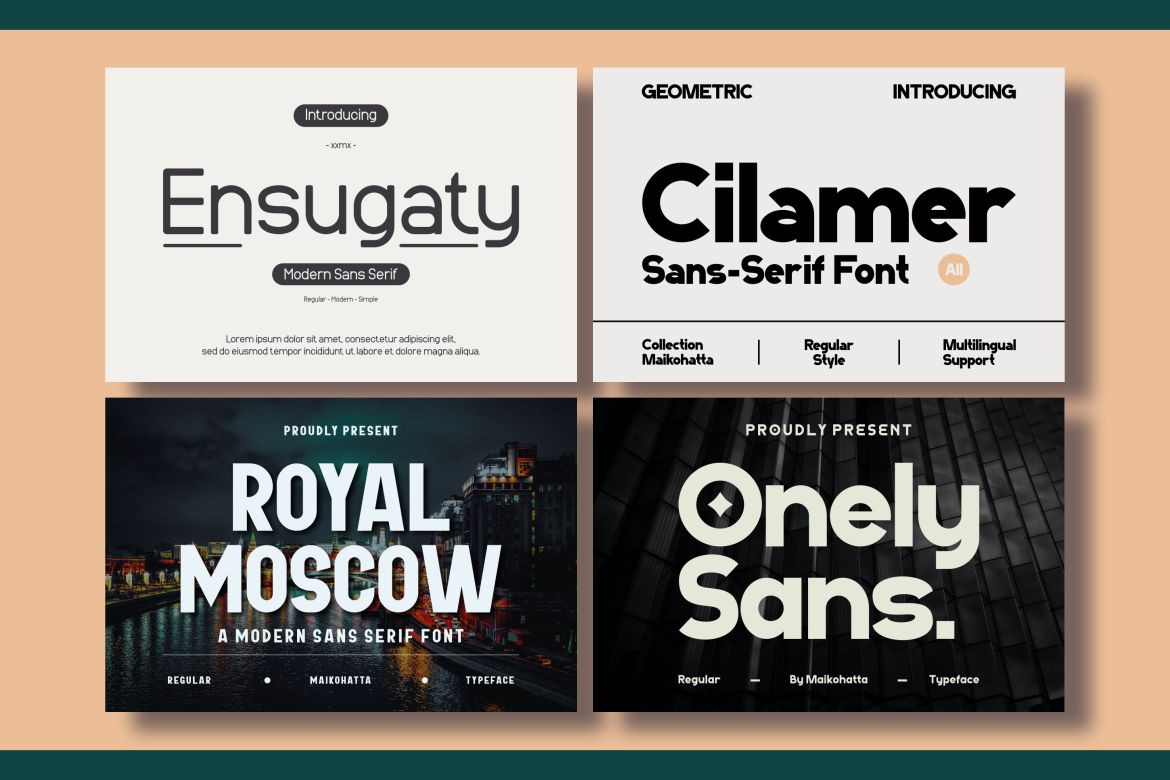
Modern Sans Serif Font Bundle
Introducing our new product Modern Sans Serif Font Bundle - Modern Font
Modern Sans Serif Font Bundle - Modern Font is a bold and authentic display font. The font is suitable for any branding project like logo, template design, esport, and many more. outstanding in a wide range of contexts.